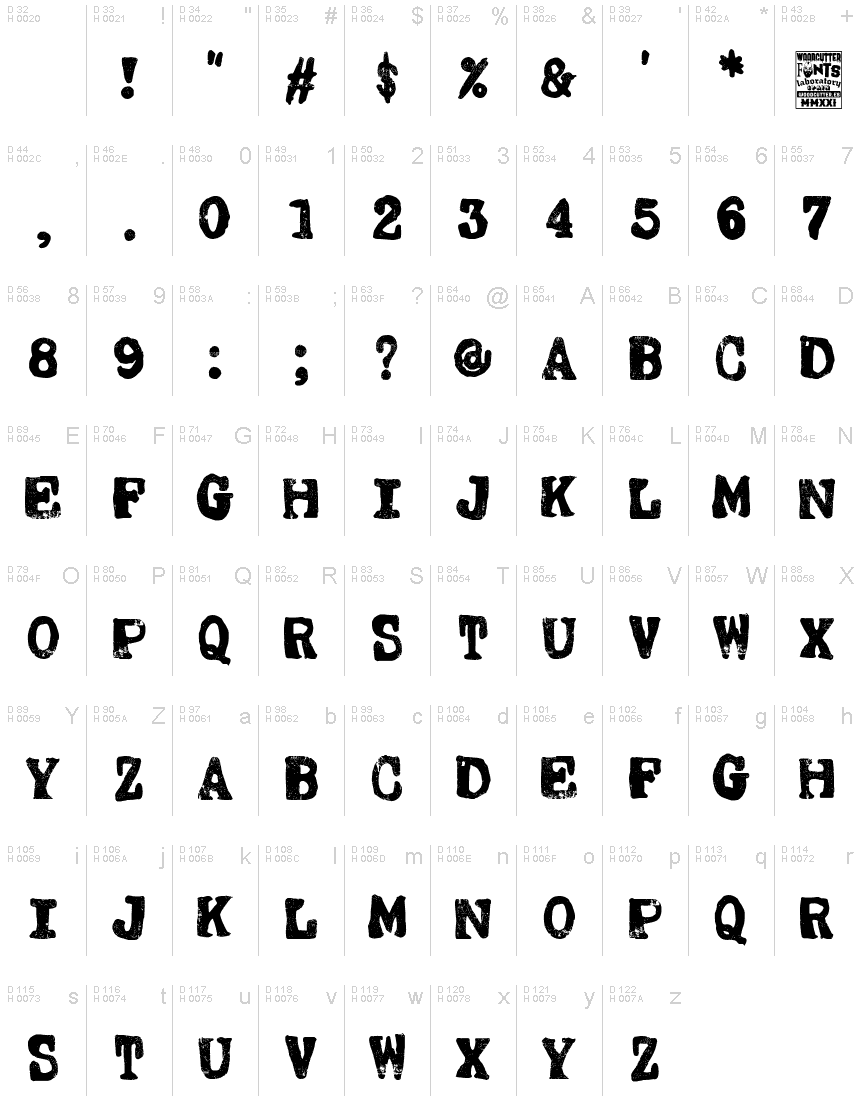
Pentagono Grunge
Introducing Pentagono Grunge, a bold eroded display font designed by Woodcutter Manero. Perfect for creating grungy and edgy designs, this font is ideal for projects such as street art, album covers, t-shirt designs and more.